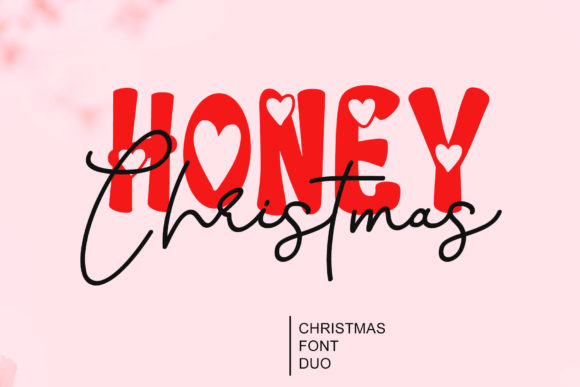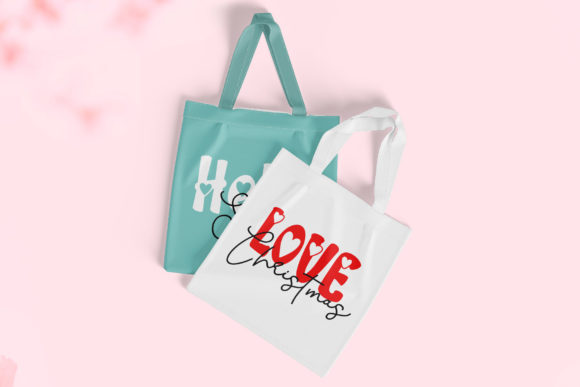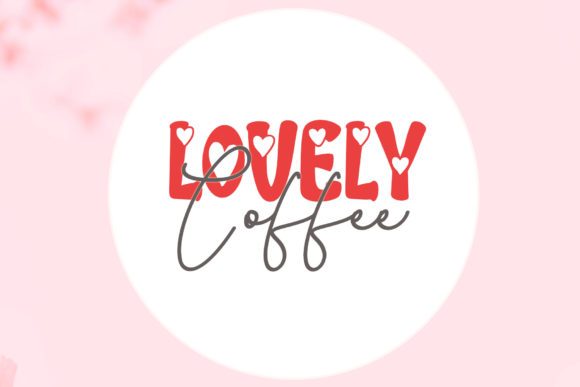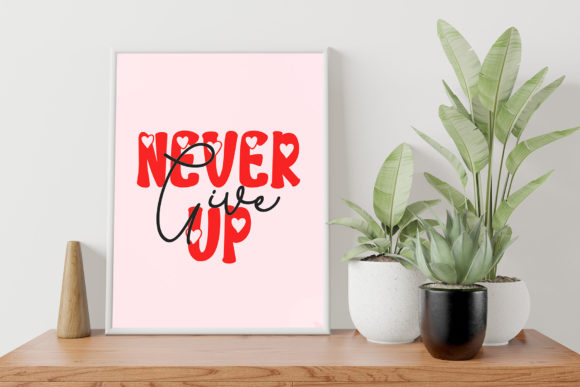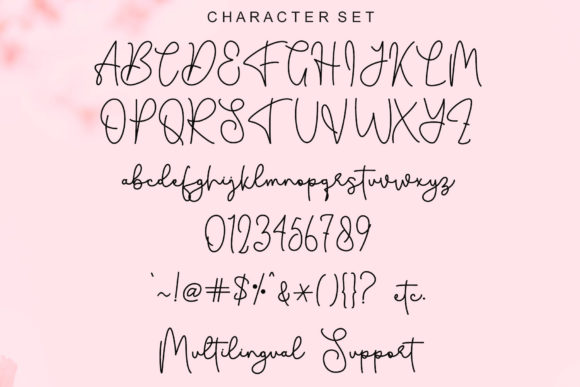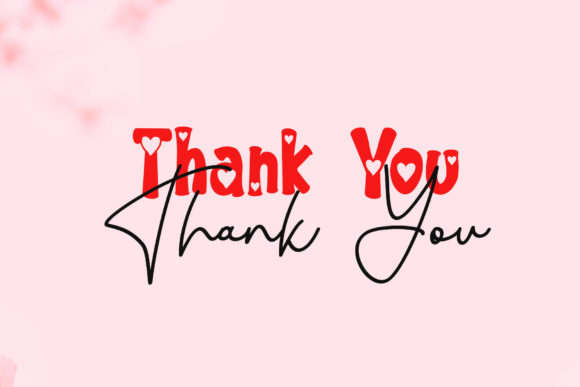
Honey Christmas Font
Honey Christmas consists of two fonts (display and script) designed to complement each other perfectly. Together or apart, these fonts are ideal for adding a chic and cheery touch to your crafts.